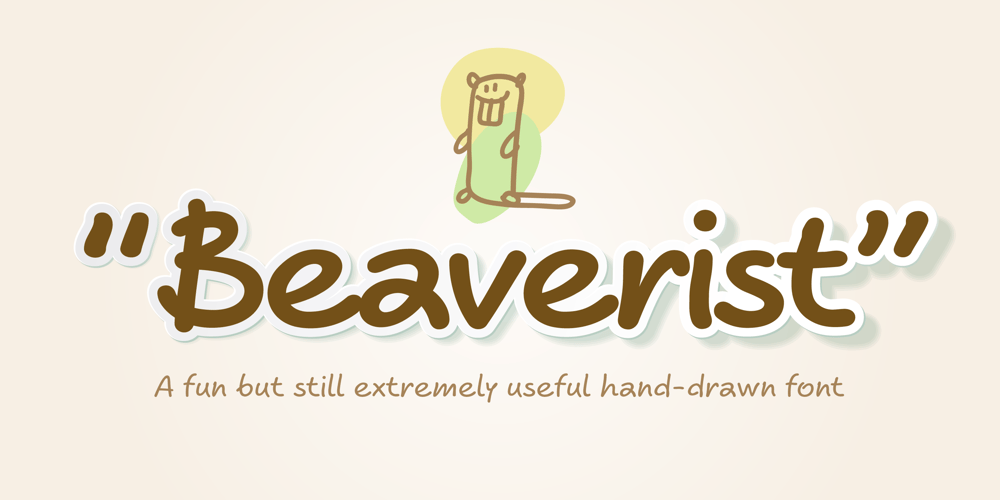
Beaverist
Beaverist font
Beaverist Font Family was designed by Alexey Popov and published by Popskraft. Beaverist contains 9 styles and family package options. The Beaverist belongs to the group of handwritten fonts and is inspired by the culture of small and cute villages located far from big cities, almost as a part of nature. Beaverist does not have the pompousness of calligraphic fonts, but it has the warmth and softness of natural forms that we rarely meet in our hectic life. So if you want a simple and easy-to-read handwritten font, don’t hesitate, the Beaverist font is your choice.